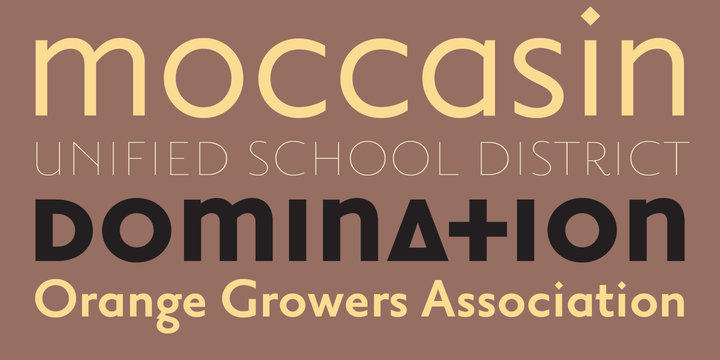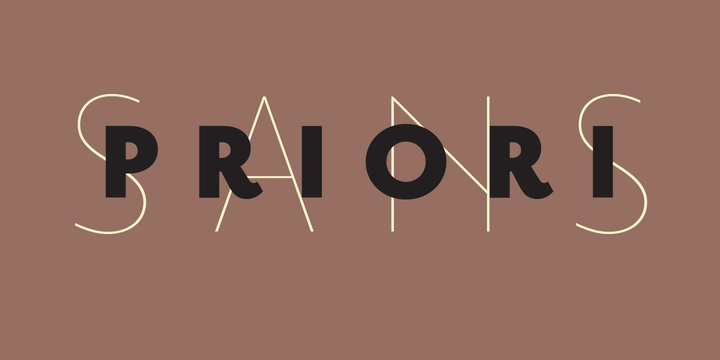
Priori Sans
Priori Sans Font Family
After the popular successes of Exocet and Mason, Emigre has once again teamed up with Jonathan Barnbrook to bring you his latest venture into type land. Priori is a logical progression from Mason, a typeface he designed around ten years ago. Where Mason was designed purely for display purposes and featured only caps, Priori includes lower case, companion serif and sans serif versions, alternates and, according to its creator, is shooting for text face status – a bold claim from a designer who loves to wear his influences on his sleeve and who has little use for typography that aspires to be “neutral” or “transparent.”